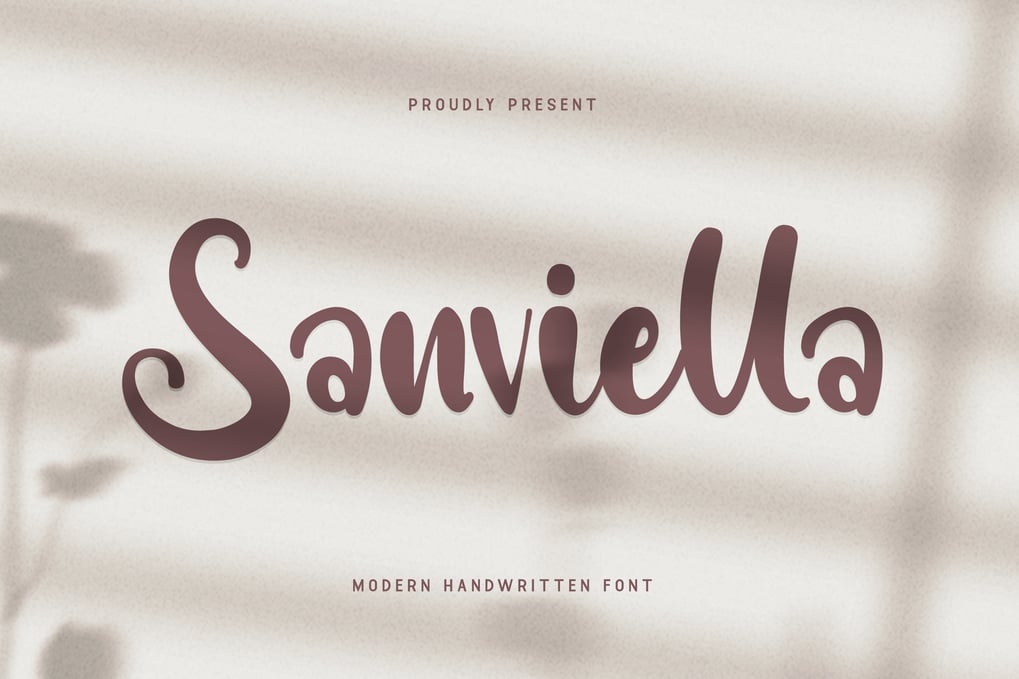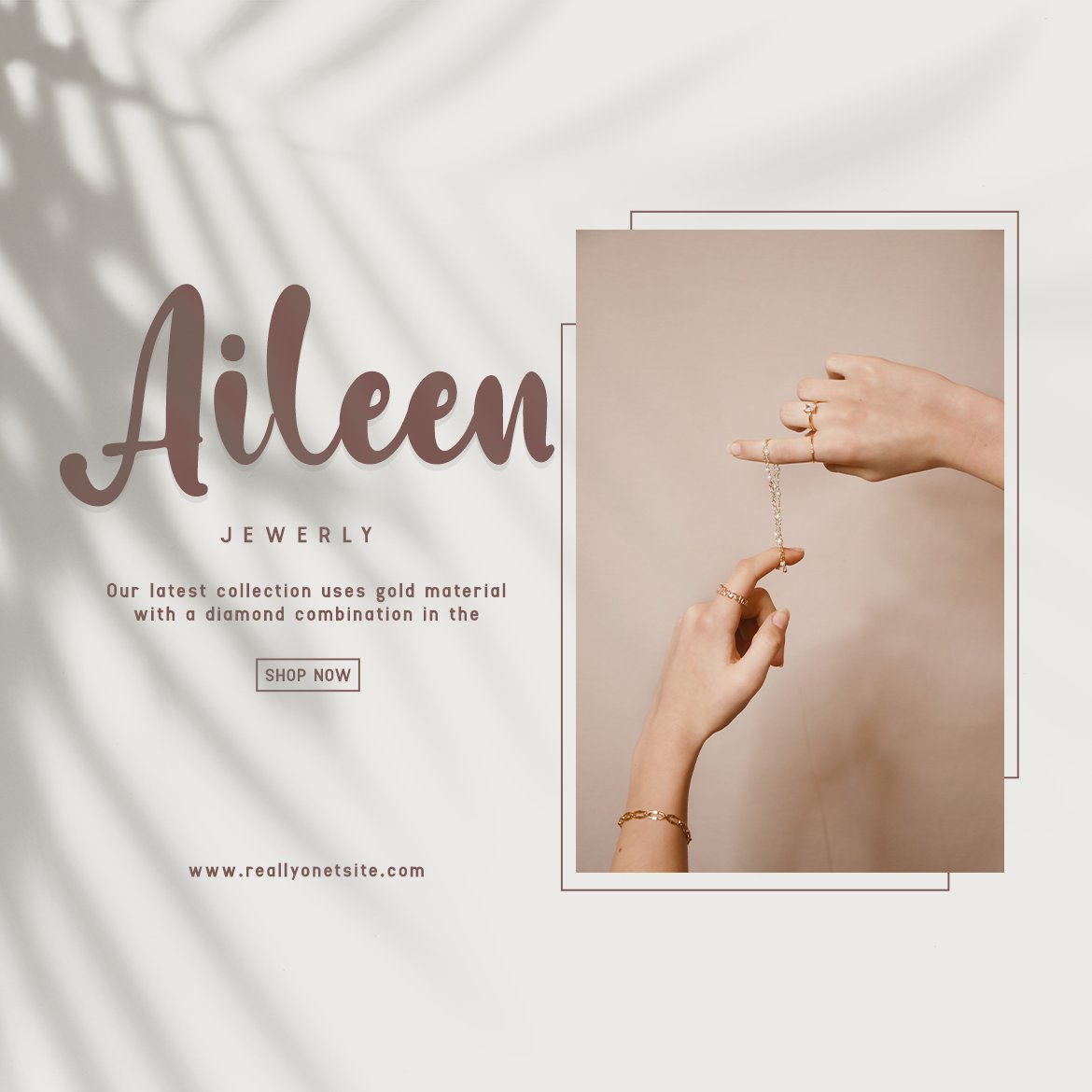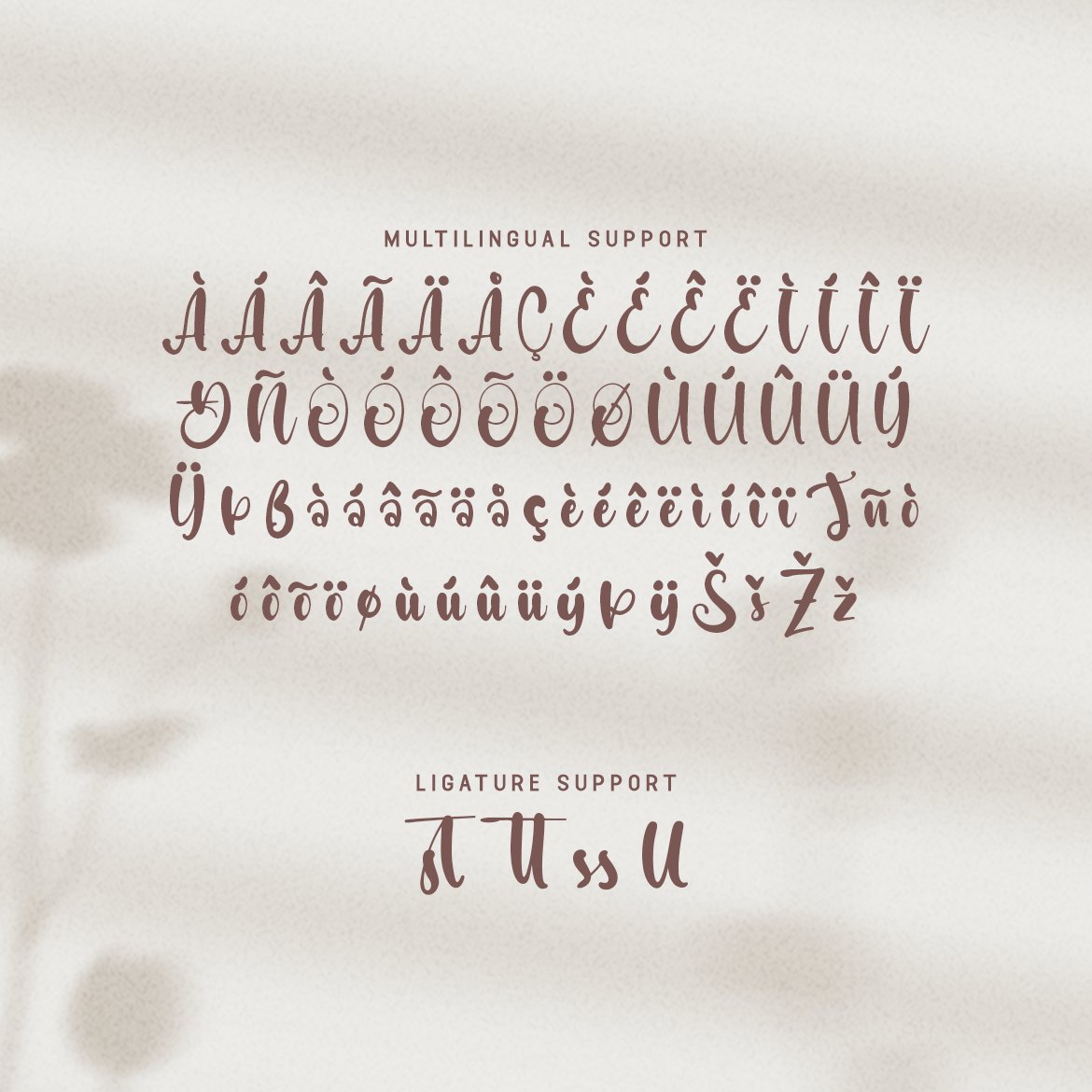
Sanviella – A Modern Handwritten Font
Designed to mimic the intricacies of real handwriting, Sanviella stands out with its delicate curves and expressive letterforms. Its versatile nature makes it suitable for both casual and formal applications, providing a seamless blend of style and readability. Whether you’re designing a heartfelt note, a stylish logo, or an eye-catching headline, Sanviella ensures your message is conveyed with charm and personality.